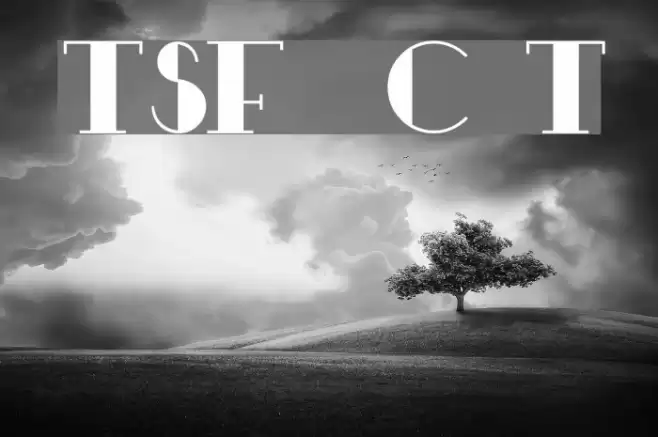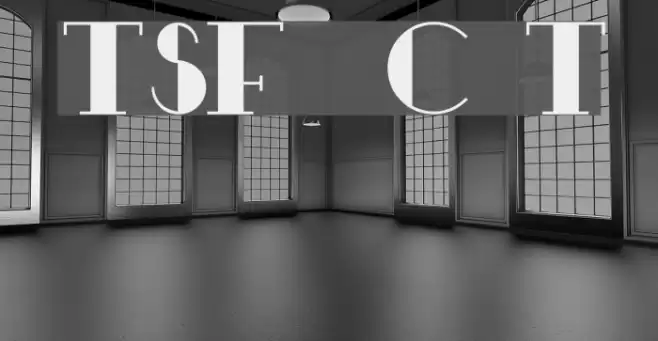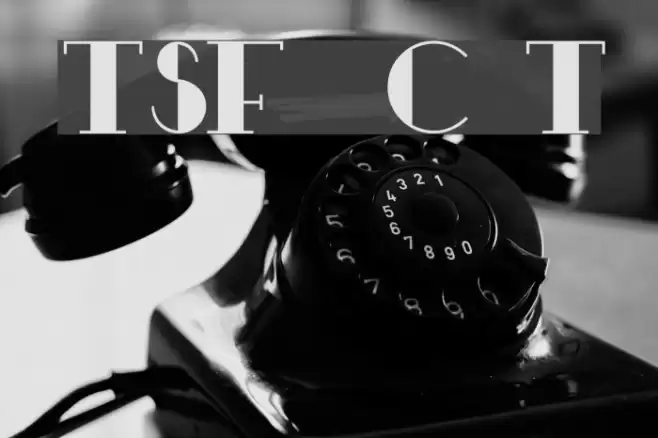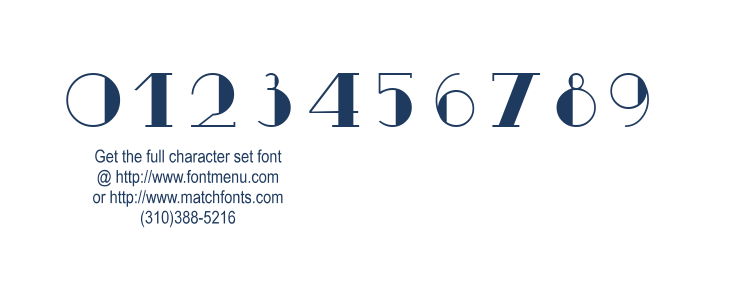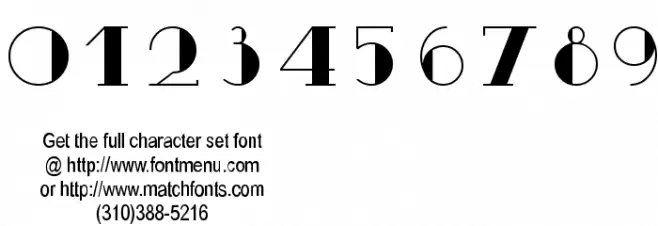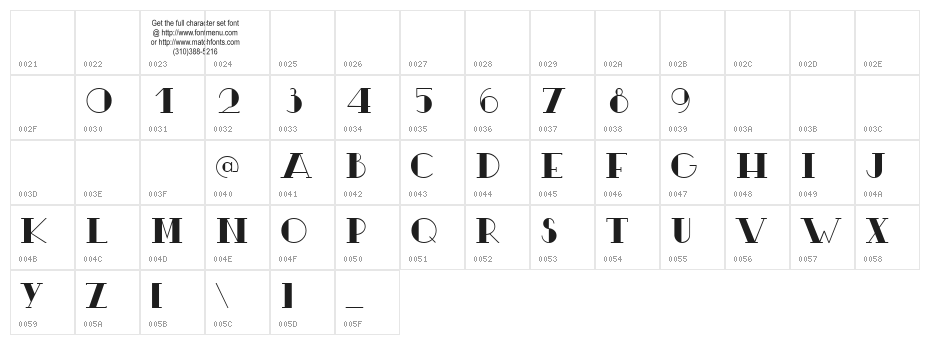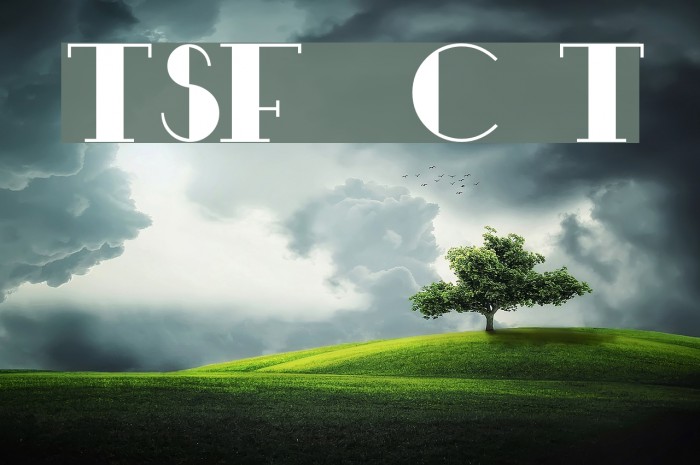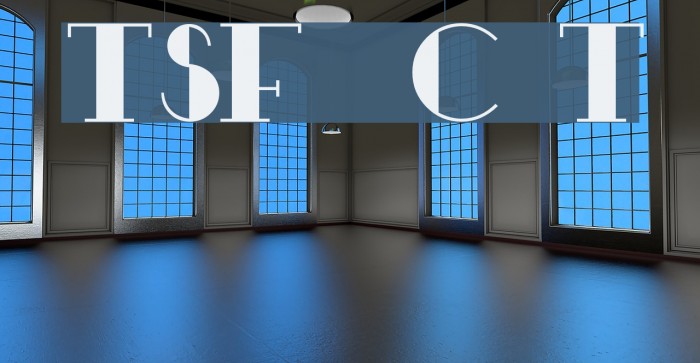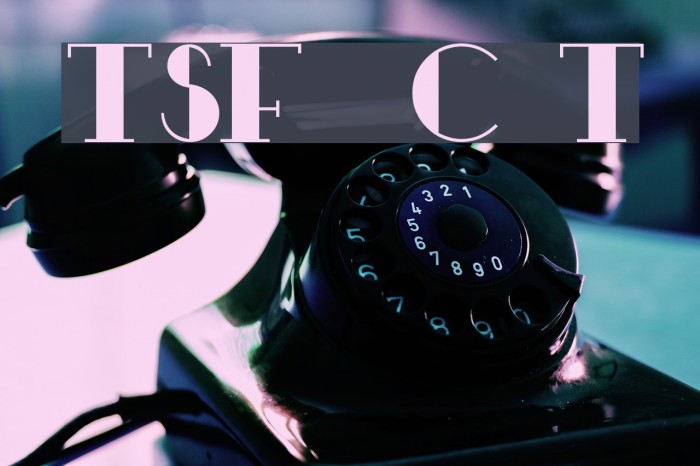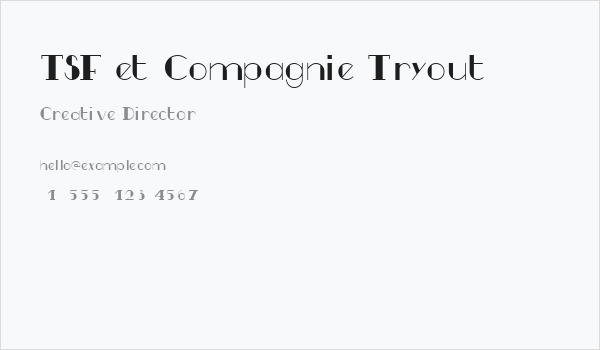
TSF et Compagnie Tryout Font
TSF et Compagnie Tryout Description
This font features a unique blend of modern and classic styles, characterized by its bold, geometric shapes and high contrast between thick and thin strokes. The uppercase letters exhibit a strong presence with sharp angles and clean lines, while the lowercase letters maintain a more fluid and elegant form. The numerals are distinct and easily readable, complementing the overall aesthetic. Special characters are designed with the same attention to detail, ensuring consistency throughout the typeface. This font's distinctive style makes it suitable for a variety of creative applications.
A bold, high-contrast font with geometric shapes and a modern classic style from Modern fonts.
- Proposed Projects: Ideal for branding, editorial design, posters, and advertising where a strong visual impact is desired.
- Overall Style: Modern, Classic